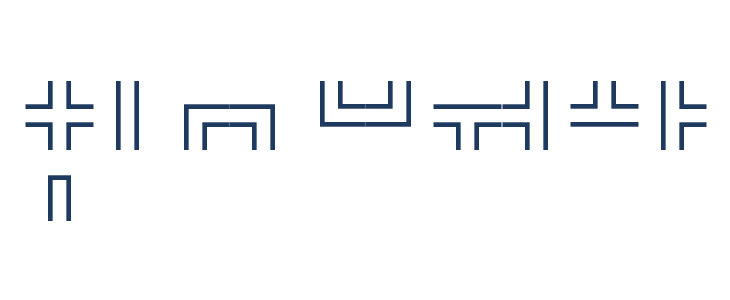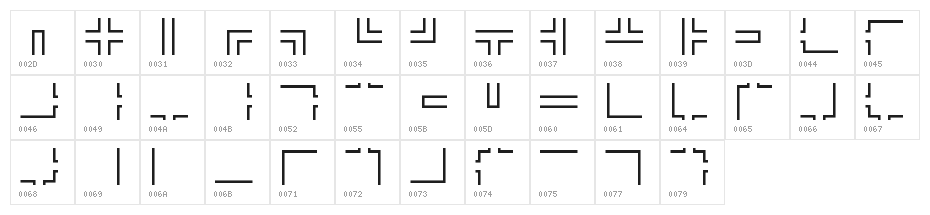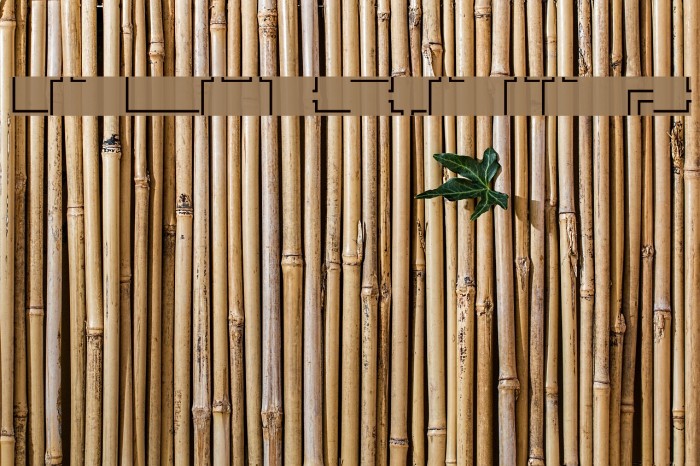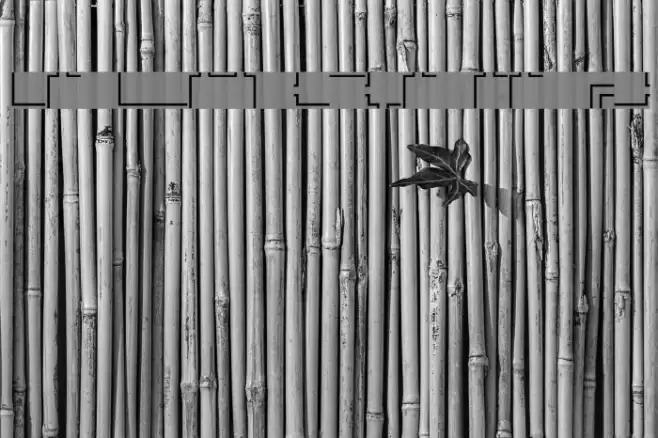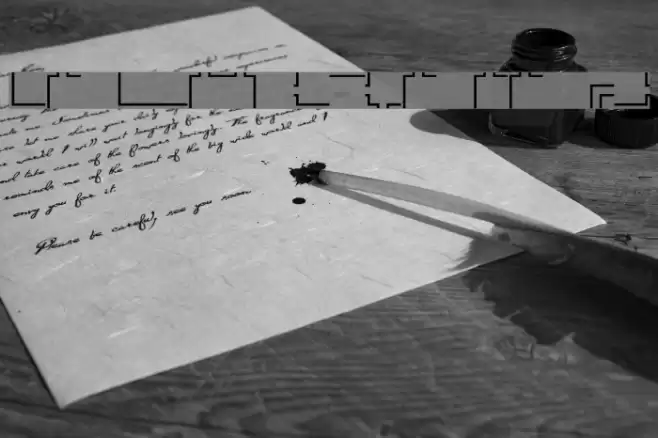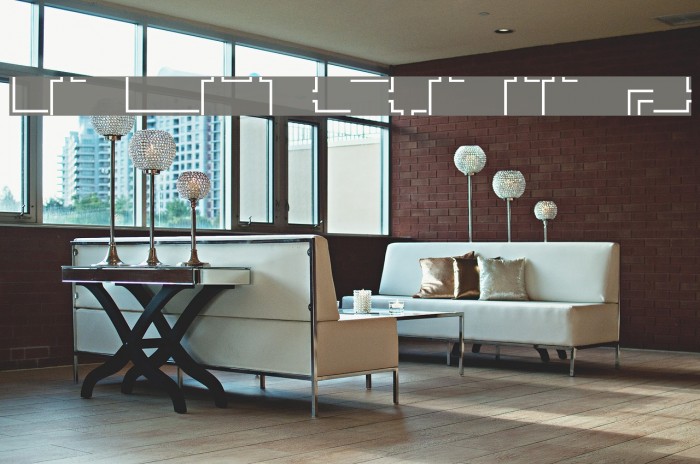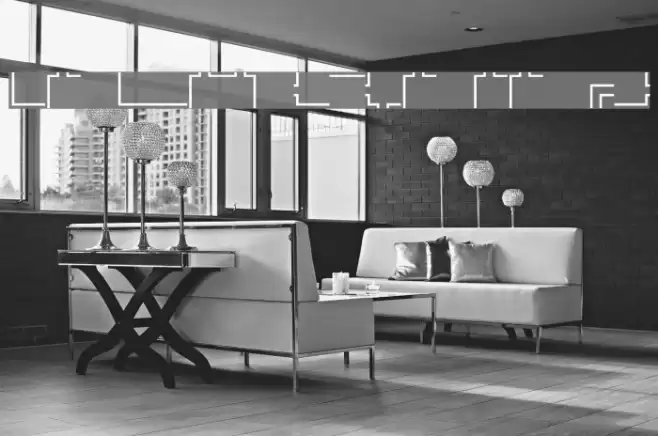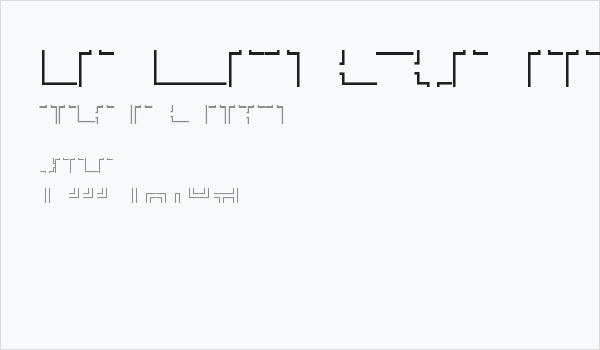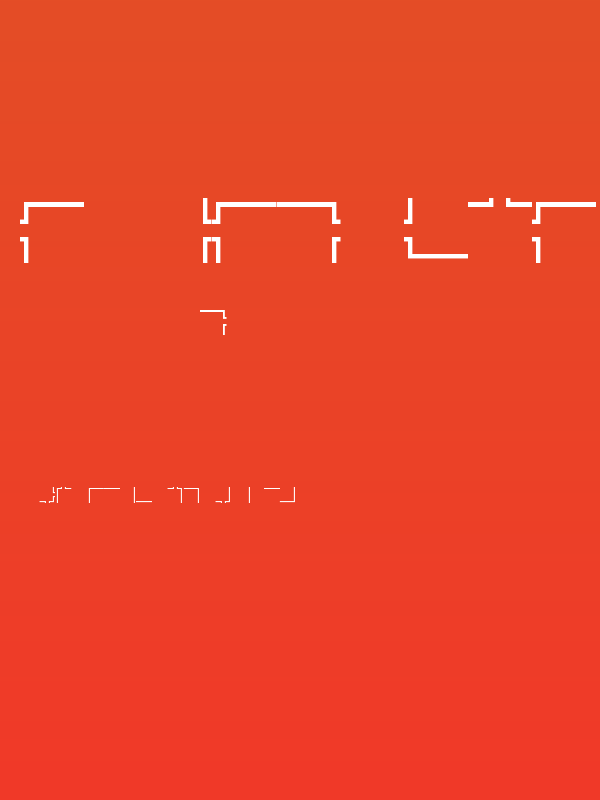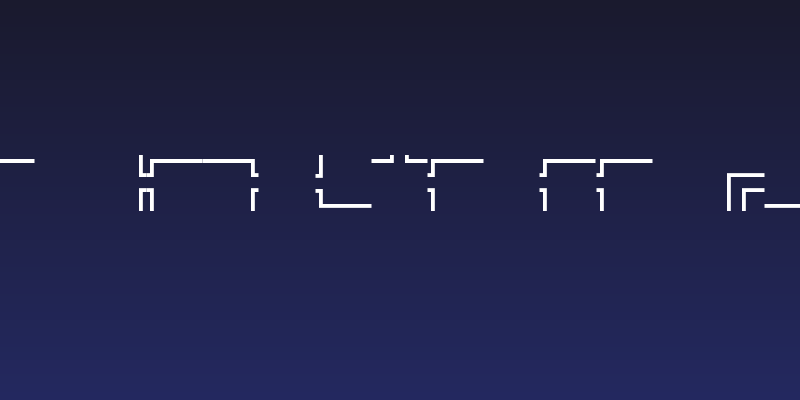
Maze Maker Dungeon Level 2F Font
Maze Maker Dungeon Level 2F Description
This is not a valid font. The image appears to be a maze or a series of interconnected lines and shapes, possibly representing a dungeon layout or level design. It lacks the typical characteristics of a font, such as consistent letterforms or recognizable characters. The design is more abstract and does not conform to any standard typographic elements.
Dingbat Dungeon
| Overall Style | Abstract, Artistic |
| Use Case | Game design, Art projects |
| Proposed Projects | This design could be used for game level design, puzzle creation, or artistic projects involving abstract patterns. |